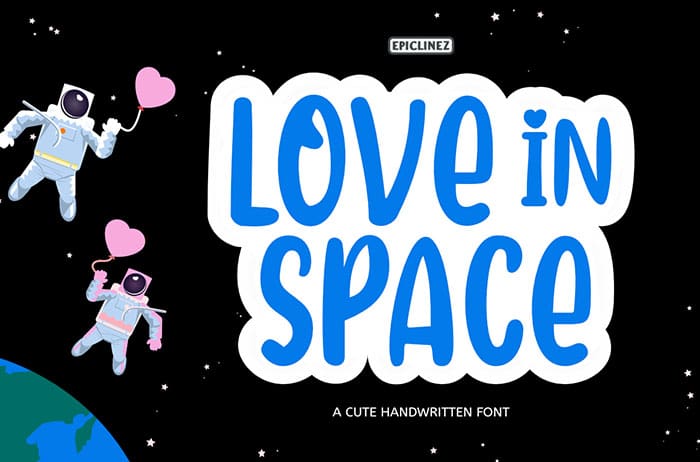
Love In Space Handwritten Font
Love in space handwritten font is a cute and stunning handwritten font, This all caps font will elevate your crafting projects to the next level! This font is available only for personal use. Created this font by Epiclinez. You can also search more free Fonts. Thanks!